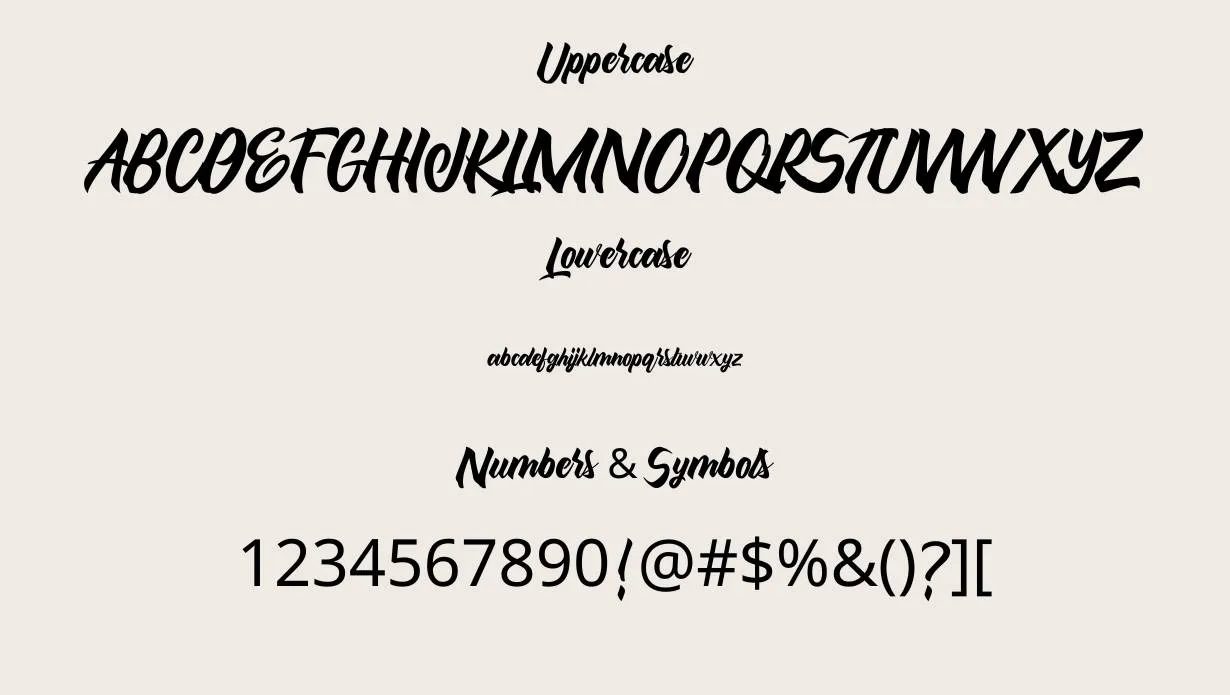
The Maghody Bold Script font presents a bold and stylish cursive appearance. Commonly employed in luxury designs, greeting cards, or any project seeking an elegant and decorative look, this font exudes flamboyance and refinement.
Its sleek and sophisticated style adds a touch of flair and opulence to texts, making it an excellent choice for designs aspiring for a chic and luxurious aesthetic. Transform your design project into a captivating masterpiece by including this typeface. You can use the silicia script font independently or harmoniously pair it with other fonts.